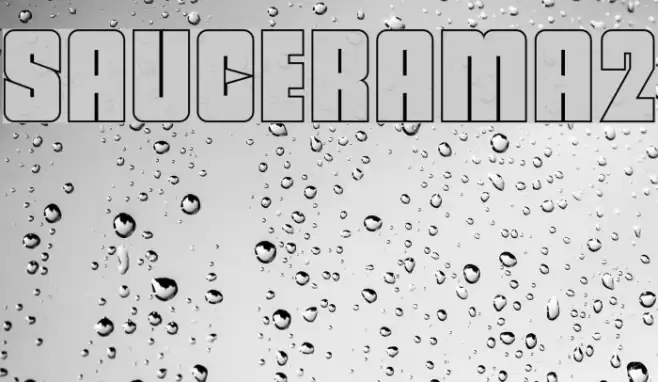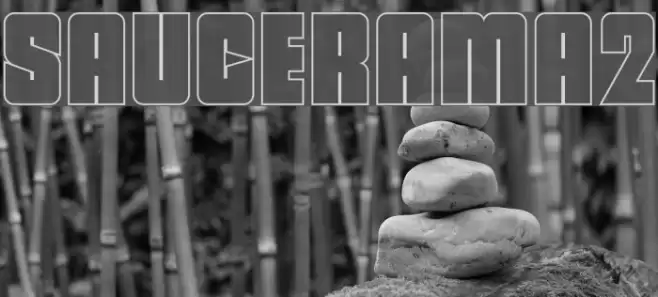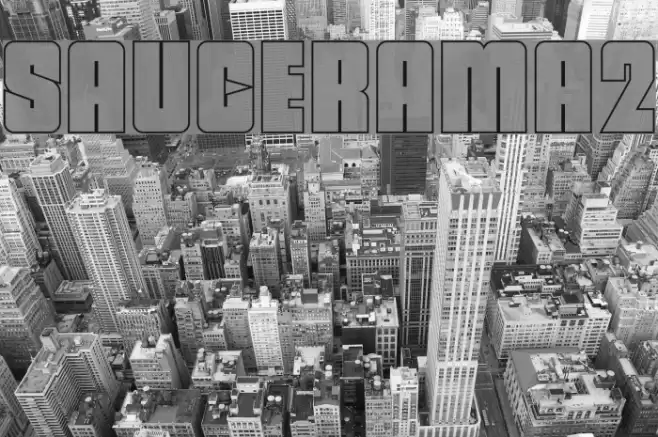
SAUCERAMA2 Font
SAUCERAMA2 Description
This font features a bold, geometric style with a futuristic flair. The characters are constructed with thick, uniform strokes and sharp angles, giving them a strong, impactful presence. The design incorporates unique cutouts and angular shapes within each letter, adding a dynamic and modern touch. The uppercase letters are particularly striking, with a consistent height and width that create a cohesive look. The numerals and special characters follow the same design principles, ensuring a harmonious appearance across all elements. This font's distinct style makes it ideal for projects that require a bold and contemporary aesthetic.
A bold, geometric font with futuristic cutouts and angular shapes from Uncategorized fonts.